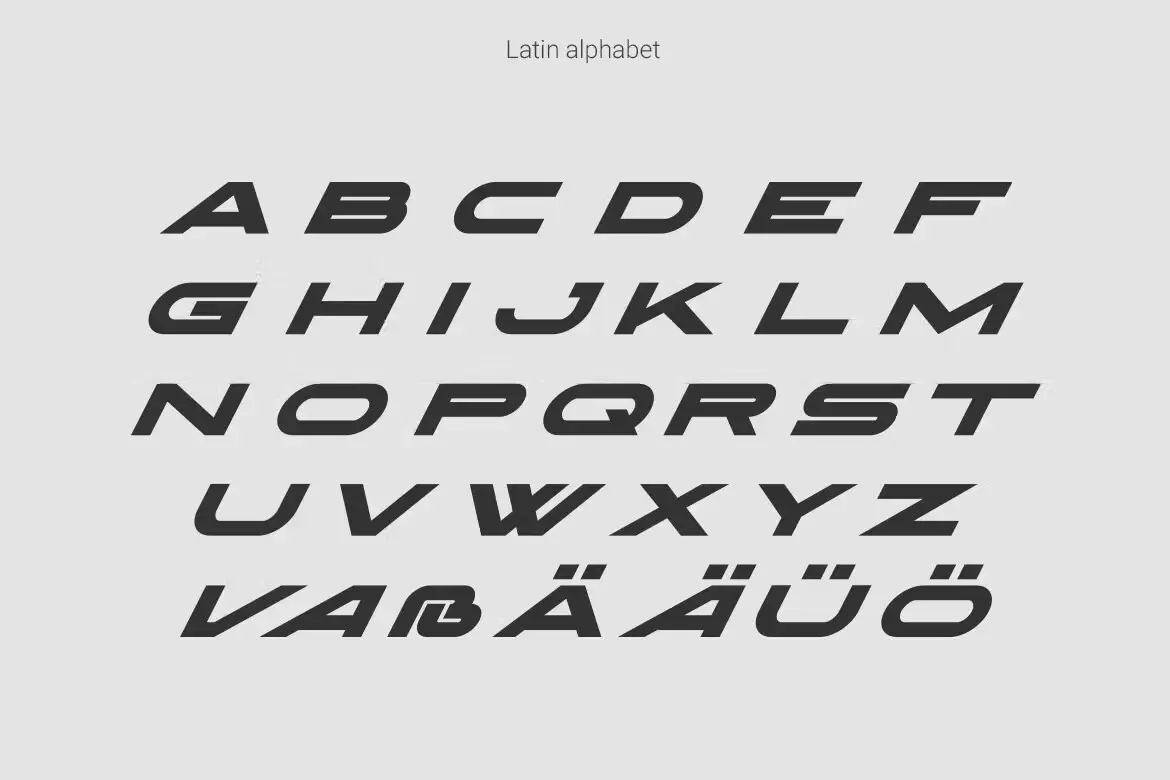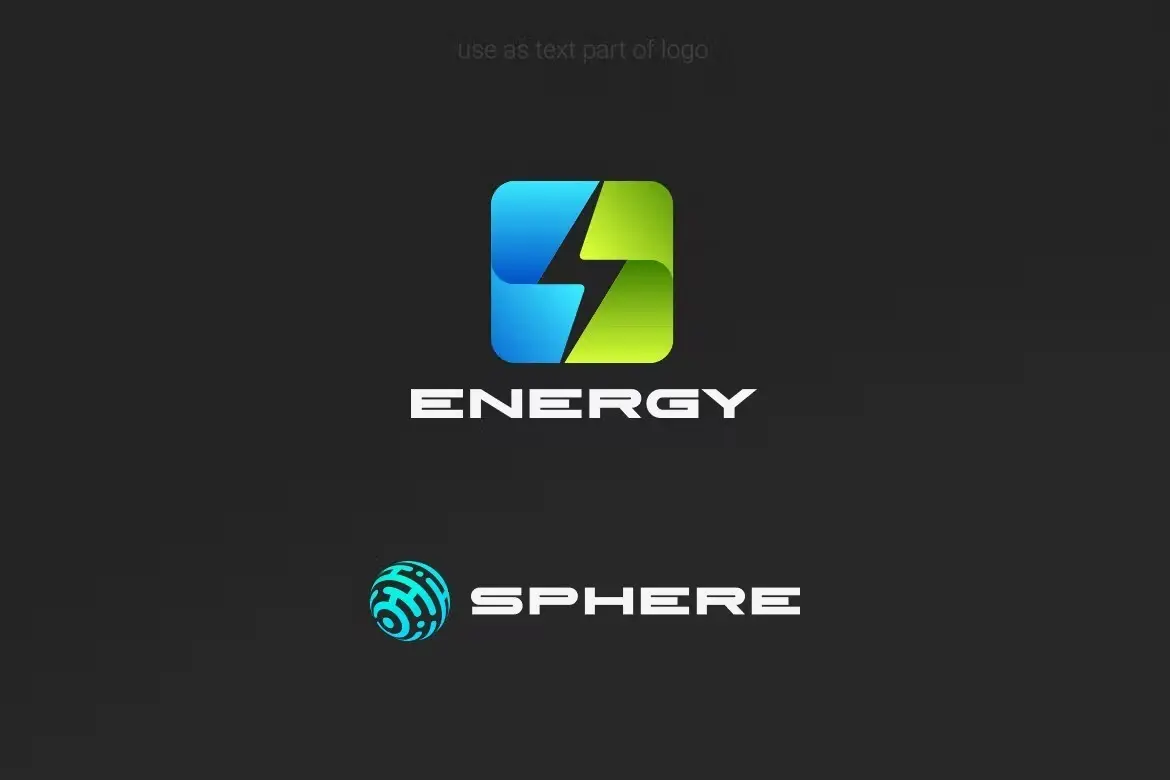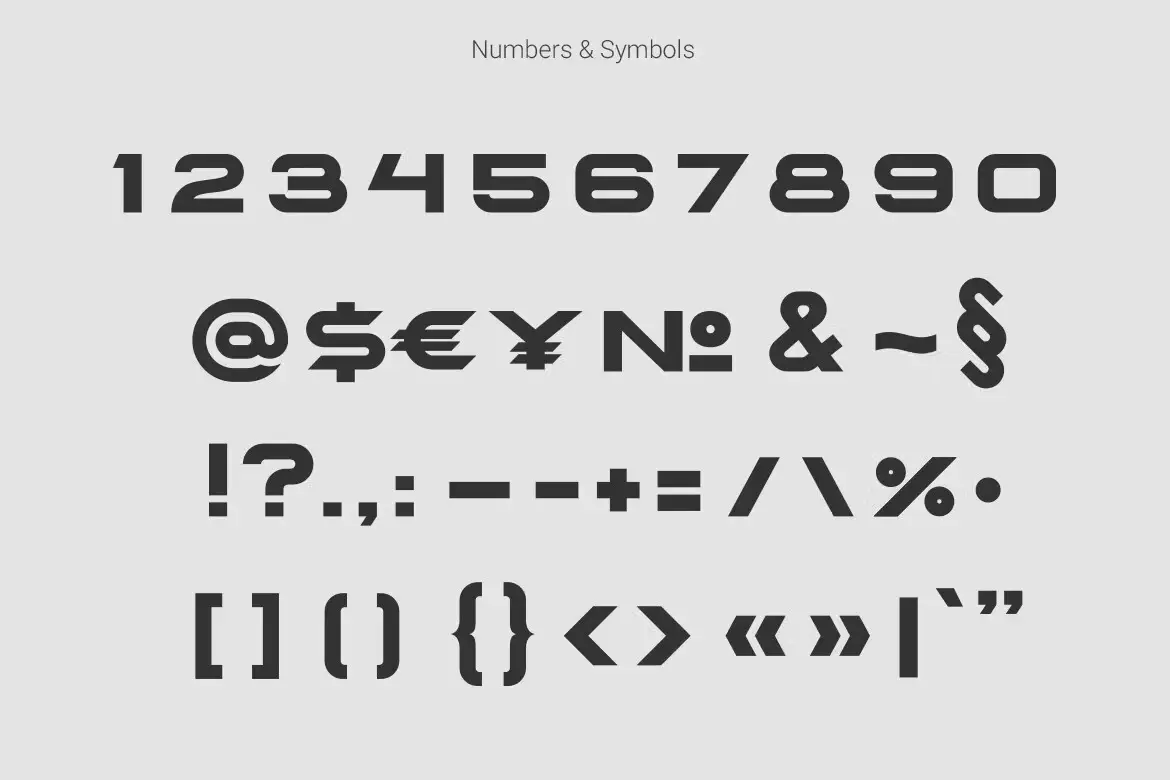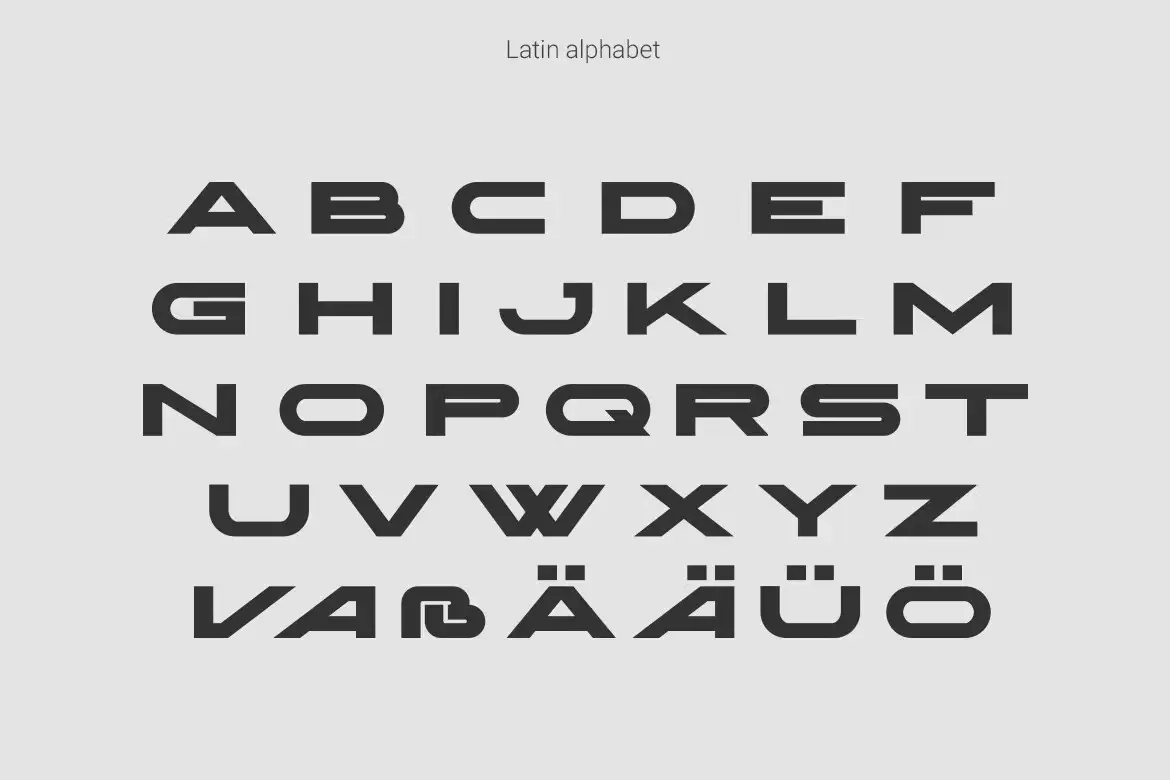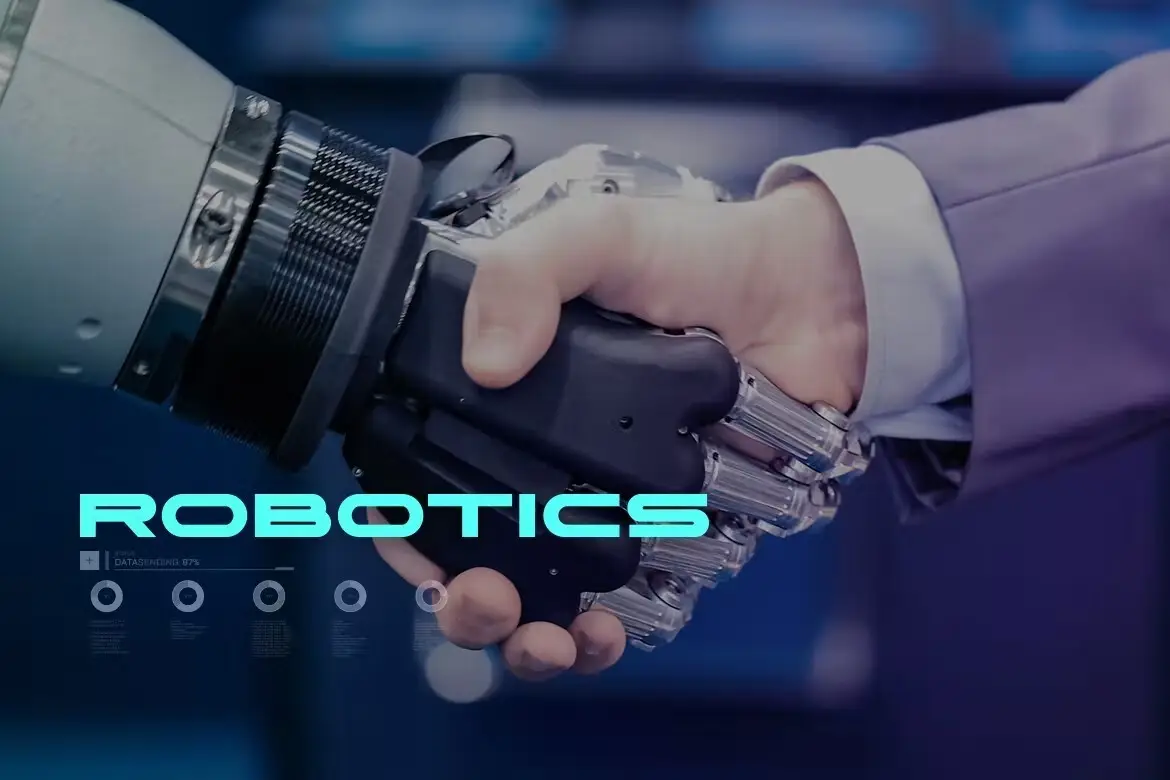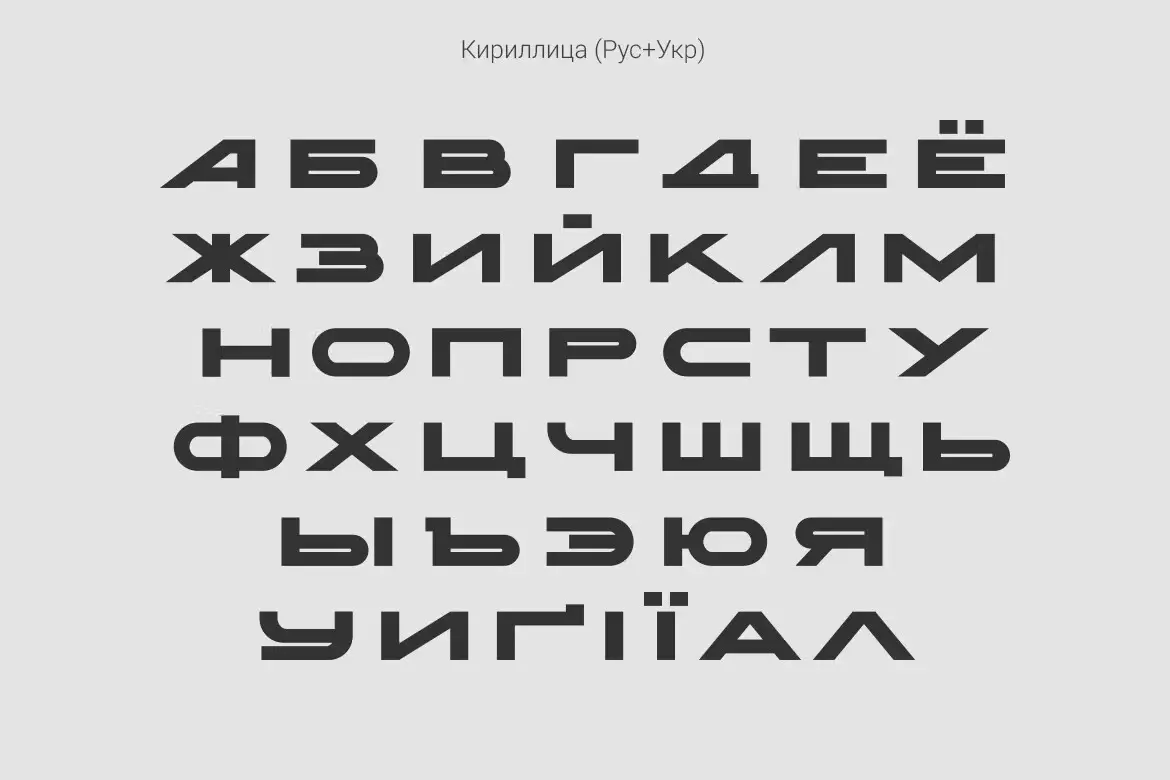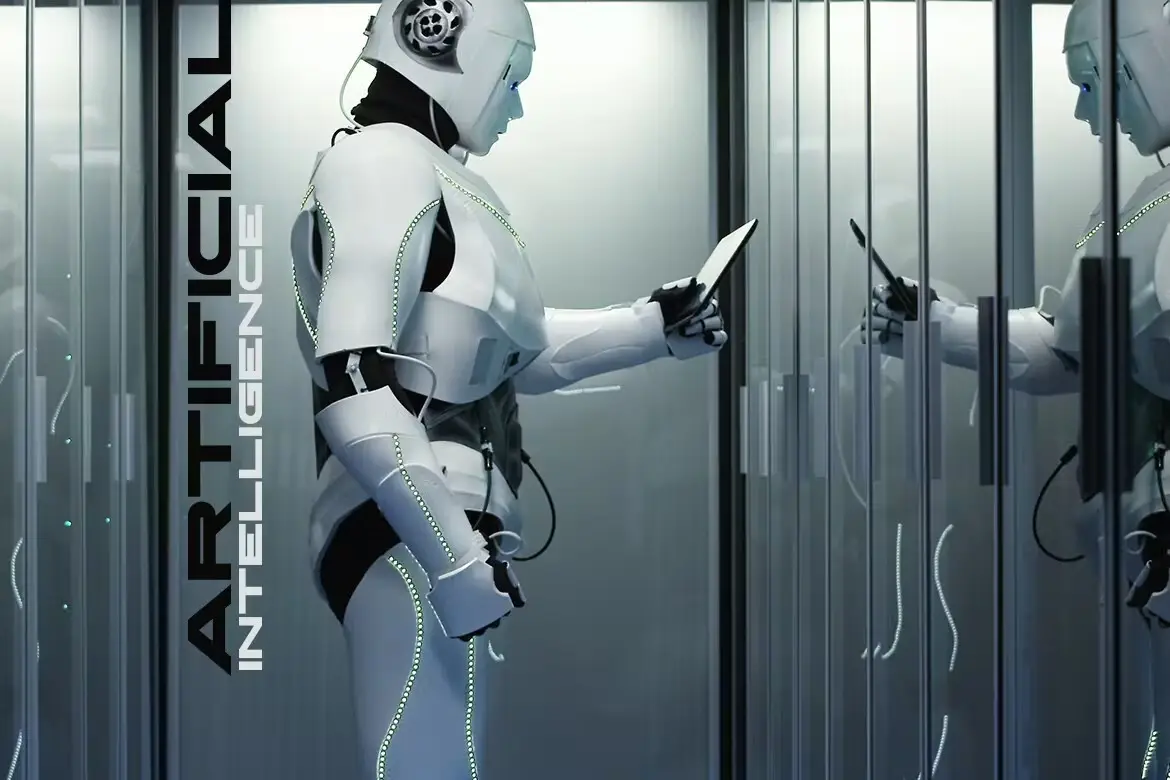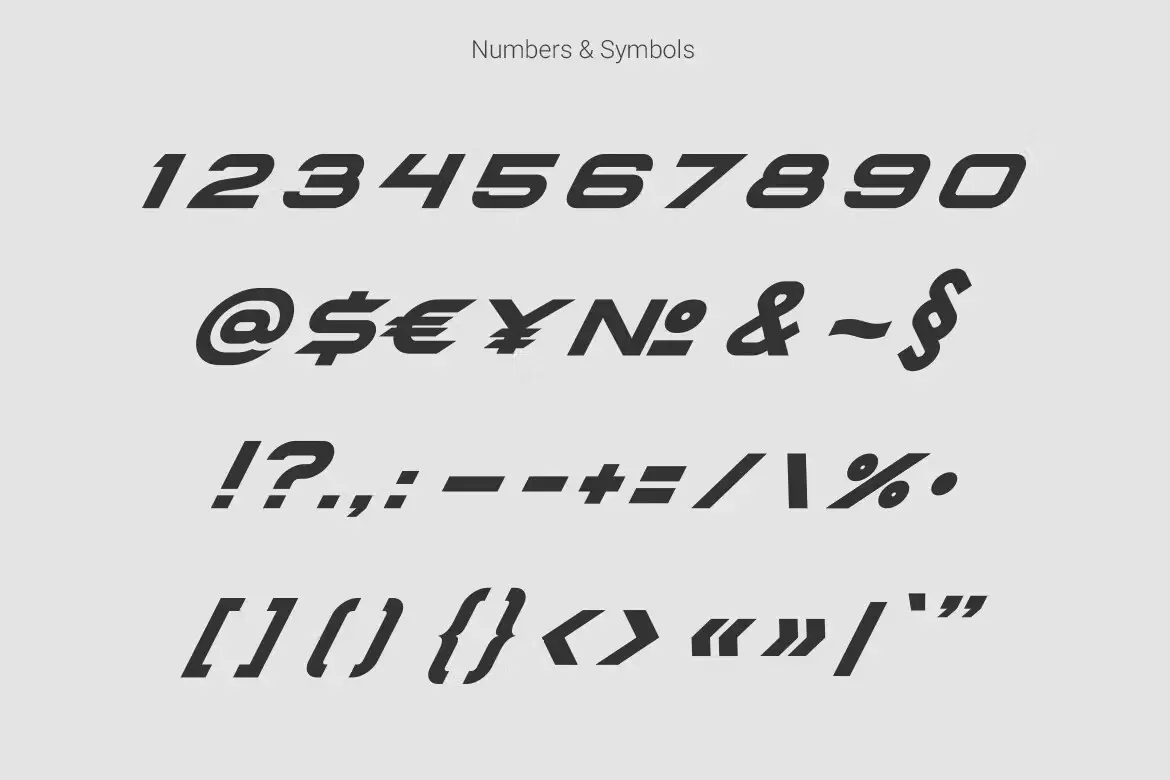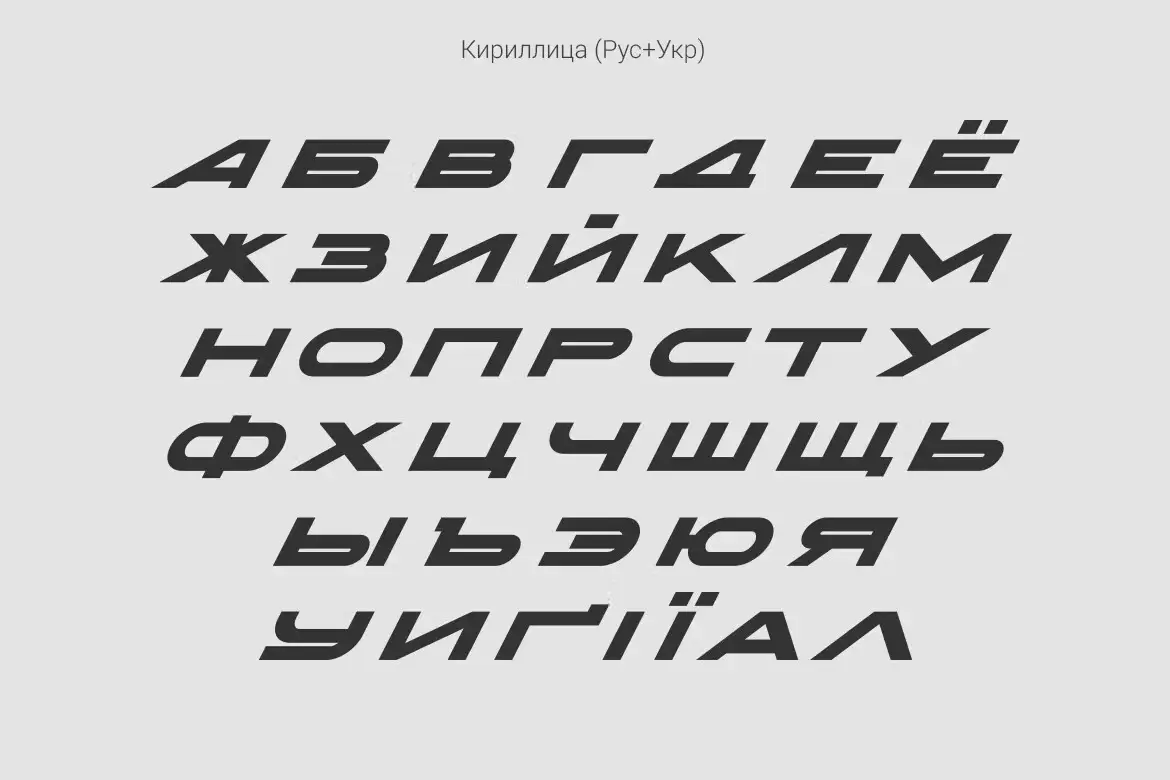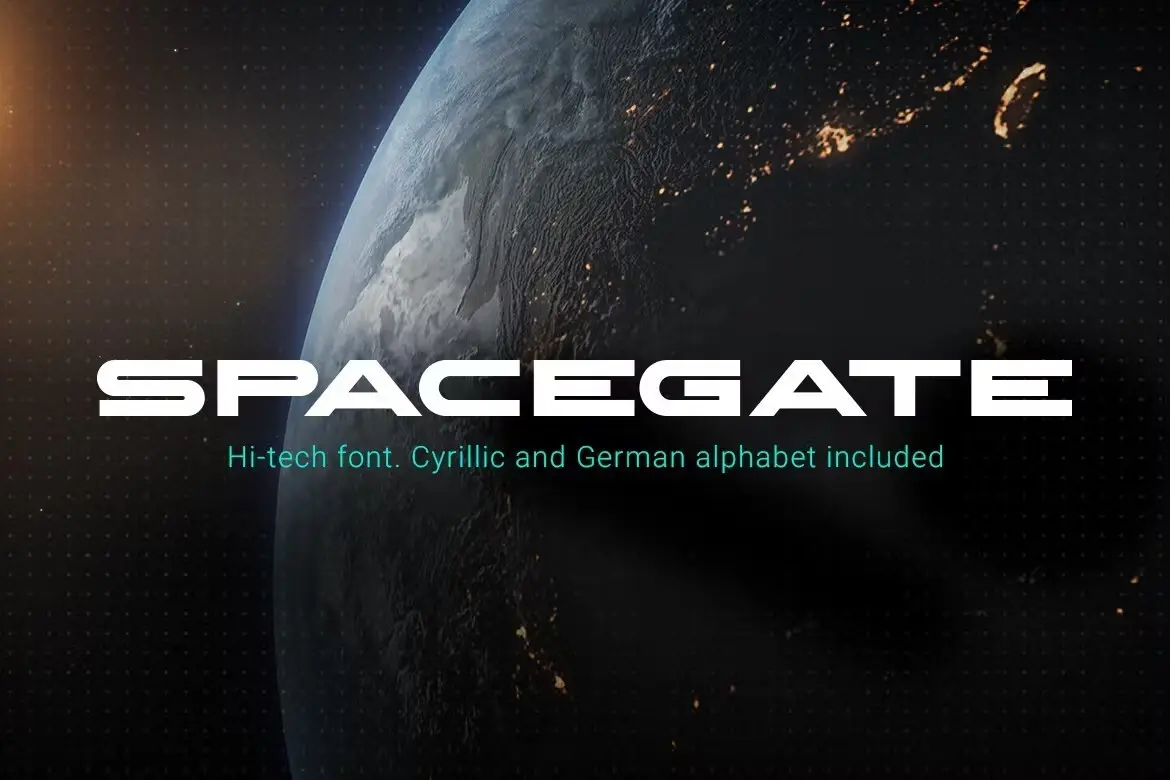
Spacegate Font: Embrace the Future of Typography
Transform your designs with the Spacegate Font, a typeface that embodies a futuristic and hi-tech atmosphere. Whether you’re crafting headers or body text, this font delivers a visually striking presence that captivates your audience. Perfect for projects in fields like robotics, virtual reality, sports, and more, Spacegate is your go-to choice for a modern aesthetic.
The Spacegate Font is designed for those who seek to make a bold statement in their creative endeavors. With its unique blend of strength and style, it’s ideal for any project that requires a touch of the extraordinary. This font supports both German and Cyrillic letters, ensuring versatility across different languages and applications.
- ✅ Futuristic Design → Perfect for tech-oriented projects that demand a modern look.
- ✅ Versatile Usage → Suitable for headers, logos, and body text.
- ✅ Multi-Language Support → Includes German and Cyrillic letters for broader accessibility.
- ✅ Two Styles Available → Choose between Regular and Italic to fit your design needs.
Why Choose Spacegate Font
When you select the Spacegate Font, you’re opting for a typeface that is not only visually appealing but also functional. Its design is trusted by professionals in various industries, making it a reliable choice for your next project. Whether you’re creating a logo for a tech startup or designing promotional materials for a space-themed event, this font will elevate your work to new heights.
To get the best results with the Spacegate Font, consider pairing it with complementary typefaces that enhance its futuristic aesthetic. Use it prominently in headers and branding materials to draw attention and convey a sense of innovation.